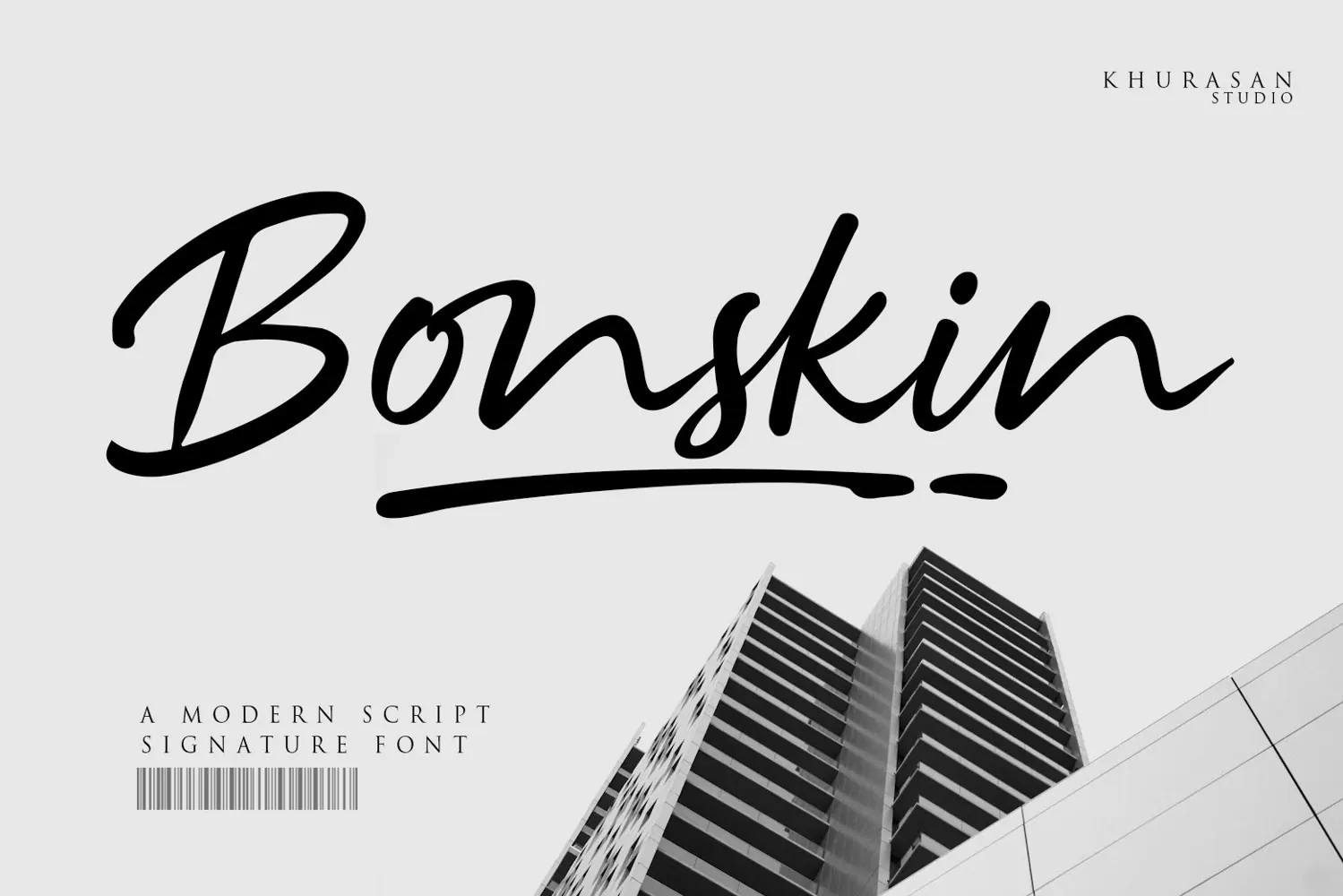
Bonskin is a script signature font, designed to capture the beauty of real hand-lettering. Every stroke feels alive — smooth and expressive. It delivers an authentic handwritten charm that makes your designs feel warm, stylish, and premium.
Perfect for logos, branding, product packaging, quotes, social media posts, wedding designs, and creative projects, Bonskin adds a artistic touch that instantly stands out.
Khurasan